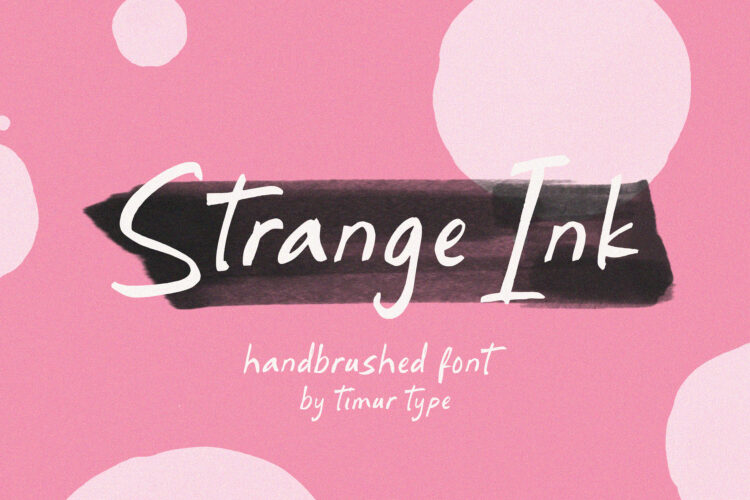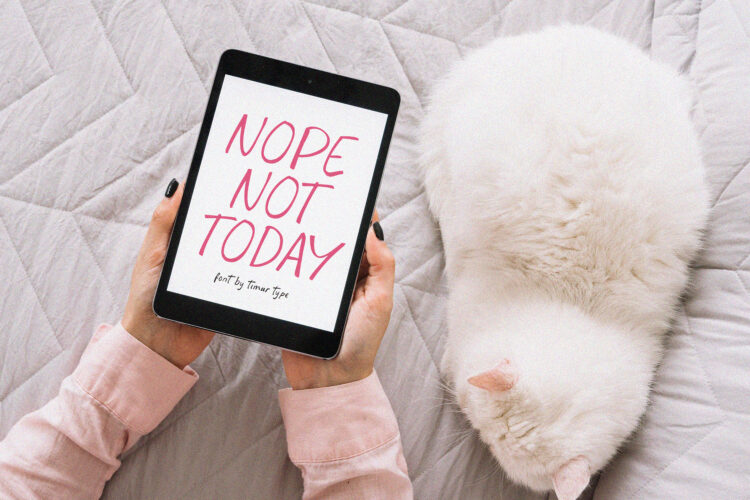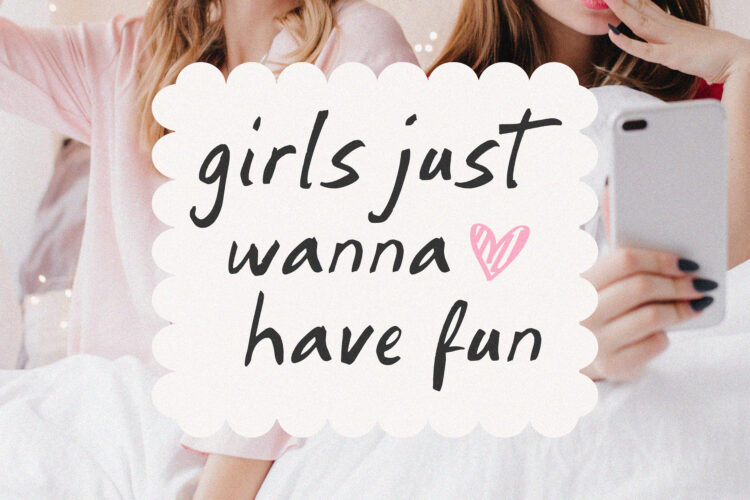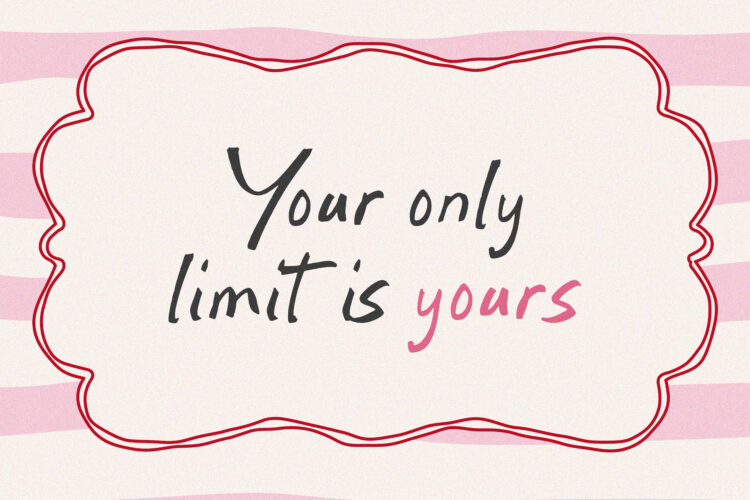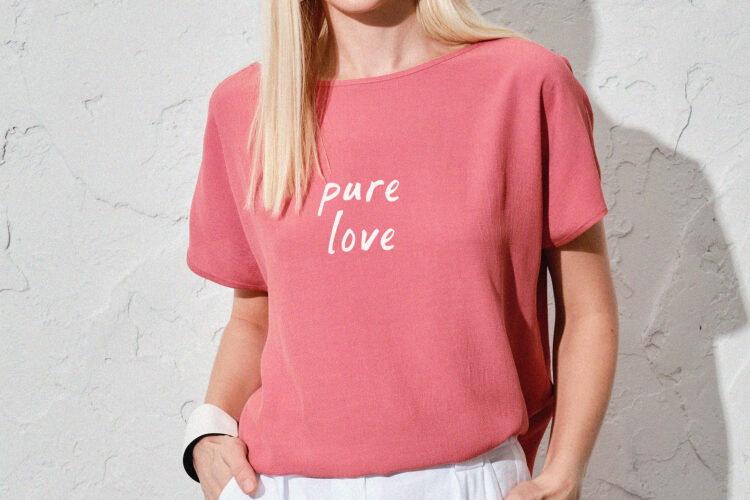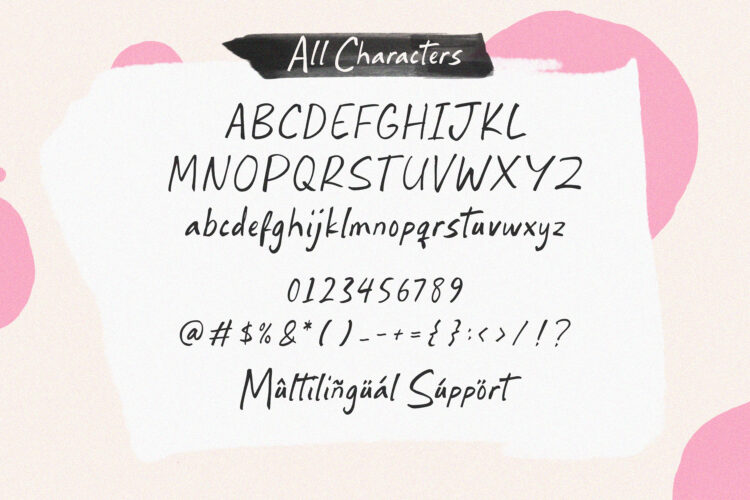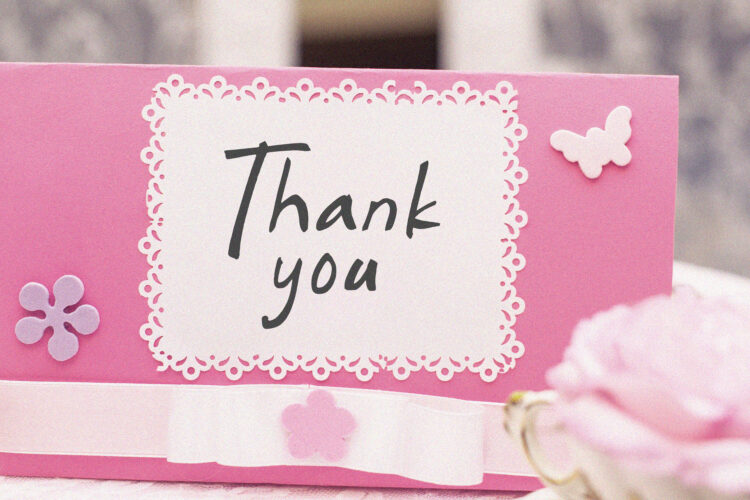
Strange Ink
Introduced by Timurtype Studio!
Strange Ink is a Handbrushed Font
This font is a handbrushed typeface that captures the raw, expressive feel of real brush strokes. Inspired by ink-on-paper techniques, it features irregular edges, dynamic textures, and slightly imperfect letterforms that give it an organic, handcrafted look. Like many brush fonts created with actual tools, its natural flow and varied stroke weight add character and authenticity, making it ideal for bold designs such as logos, posters, and artistic branding.
Strange Ink Font also supports multilingualism